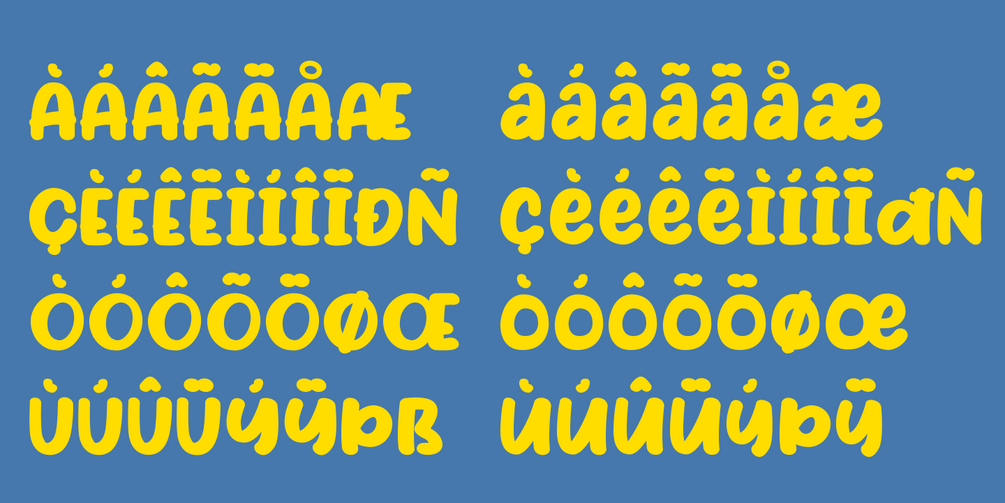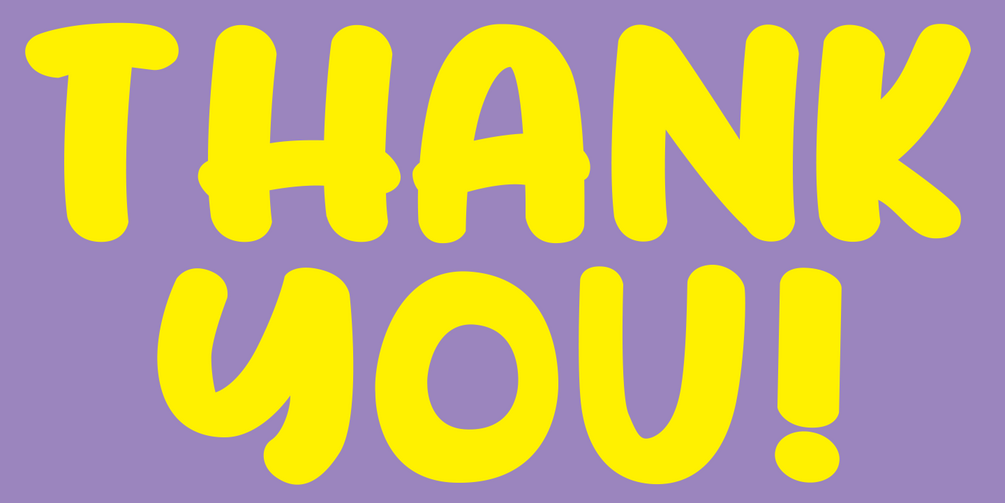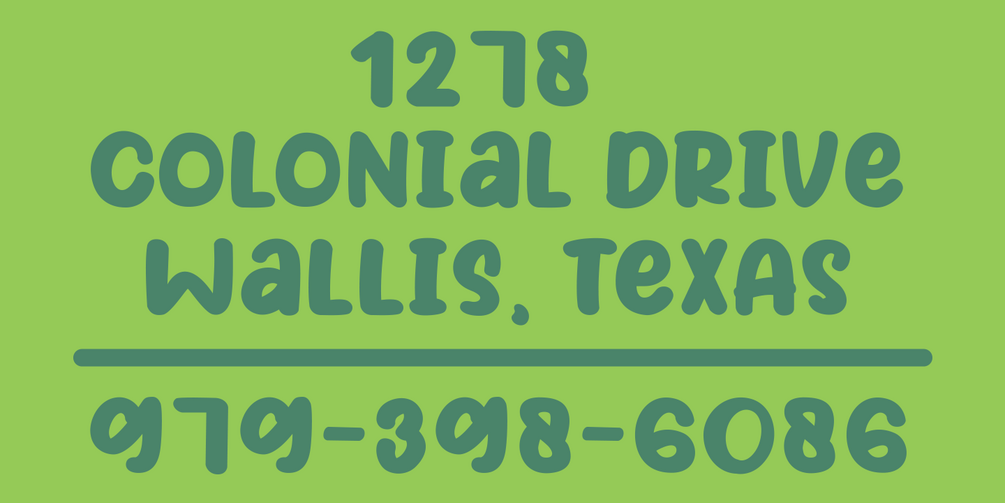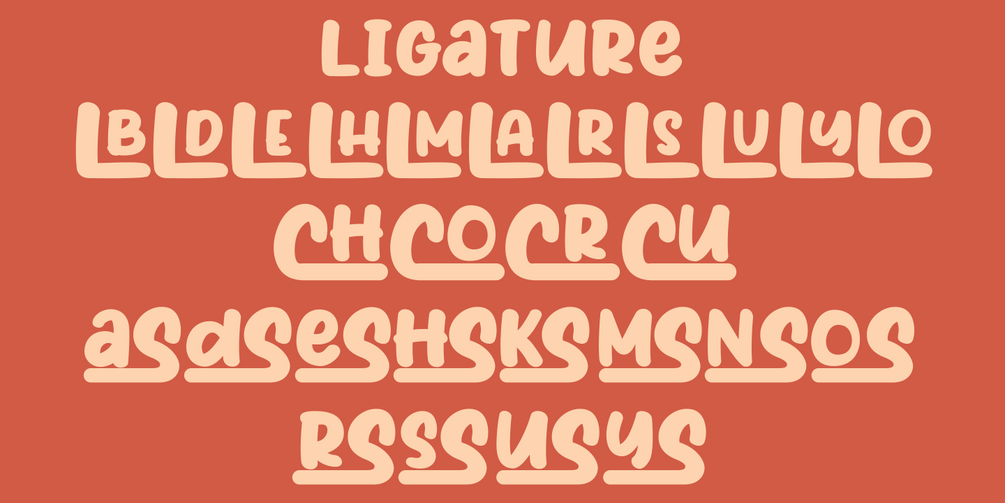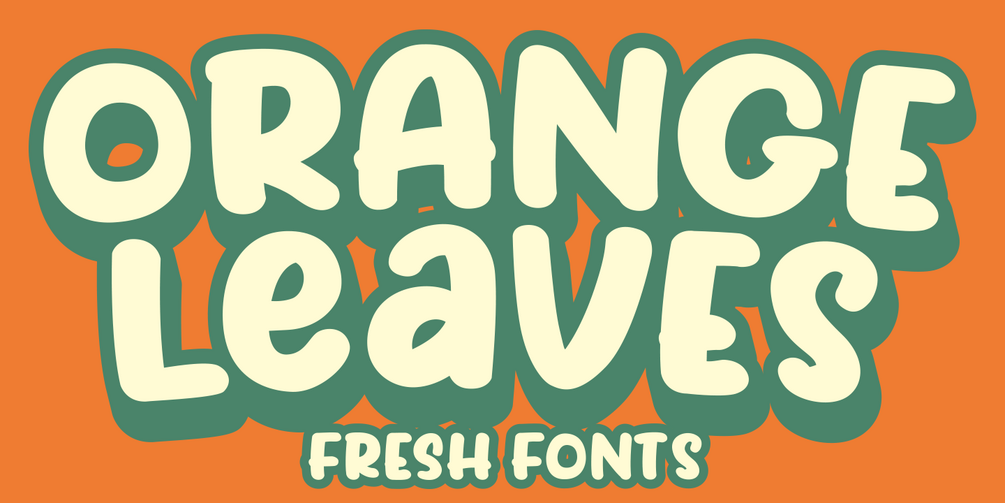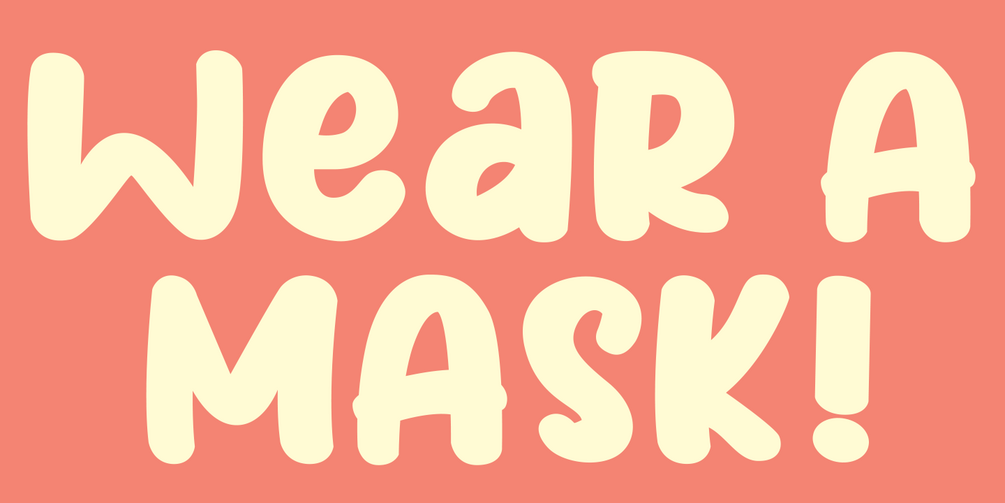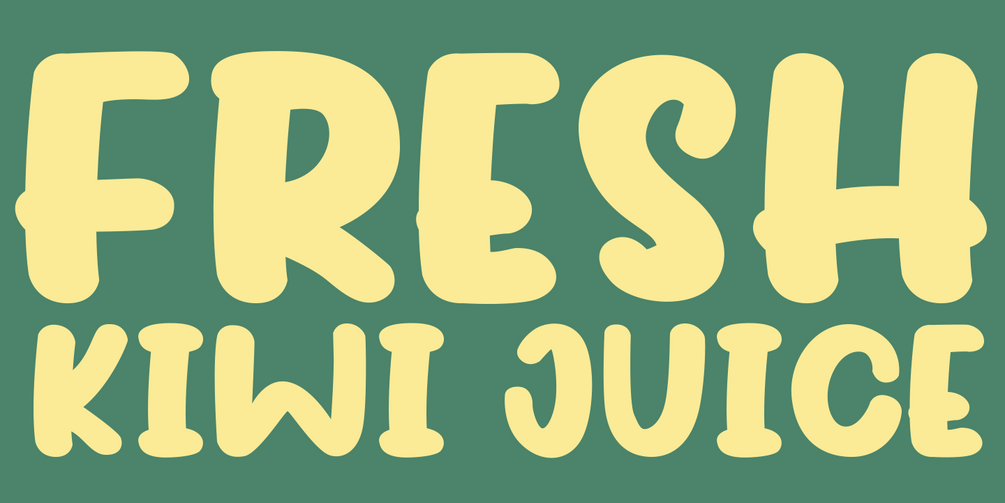
Orange Leaves - Fresh Fonts
Orange Leaves Fresh Fonts.
This font is very unique shape. Comes with some ligature make your graphic looks fresh.
Perfect Contour, Easy to read.
- Uppercase
- Lowercase
- Numerals
- Symbols
- European Multilingual
- Standart Ligature